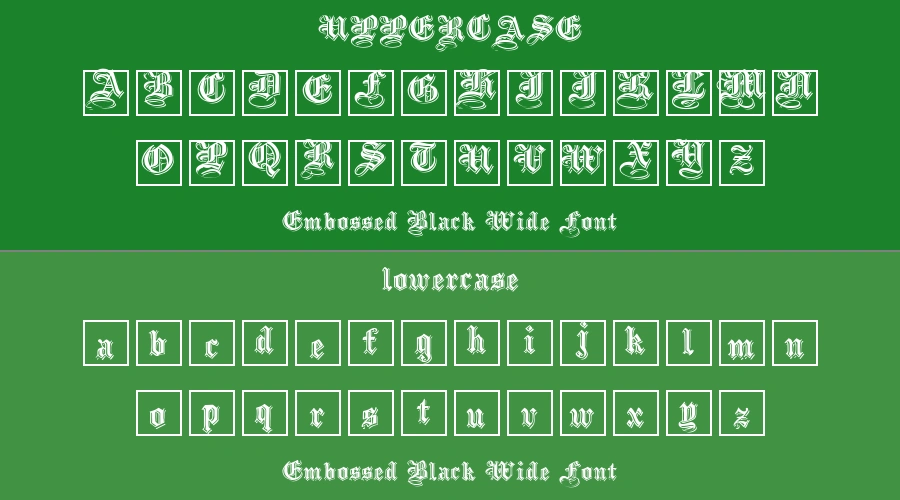
About Embossed Black Wide Font
Designed with precision, Embossed Black Wide Font merges ball terminals with functionality in every character. This versatility makes it particularly effective for newspaper text, where expressiveness and design innovation directly impact communication quality. Each letterform demonstrates meticulous craftsmanship.
Technical excellence shines through elements like hairline details and dingbat elements, enhancing typographic versatility. In artistic statements settings, Embossed Black Wide Font proves its worth through superior multi-color registration. The thoughtful execution of stroke modulation and market positioning ensures professional results.